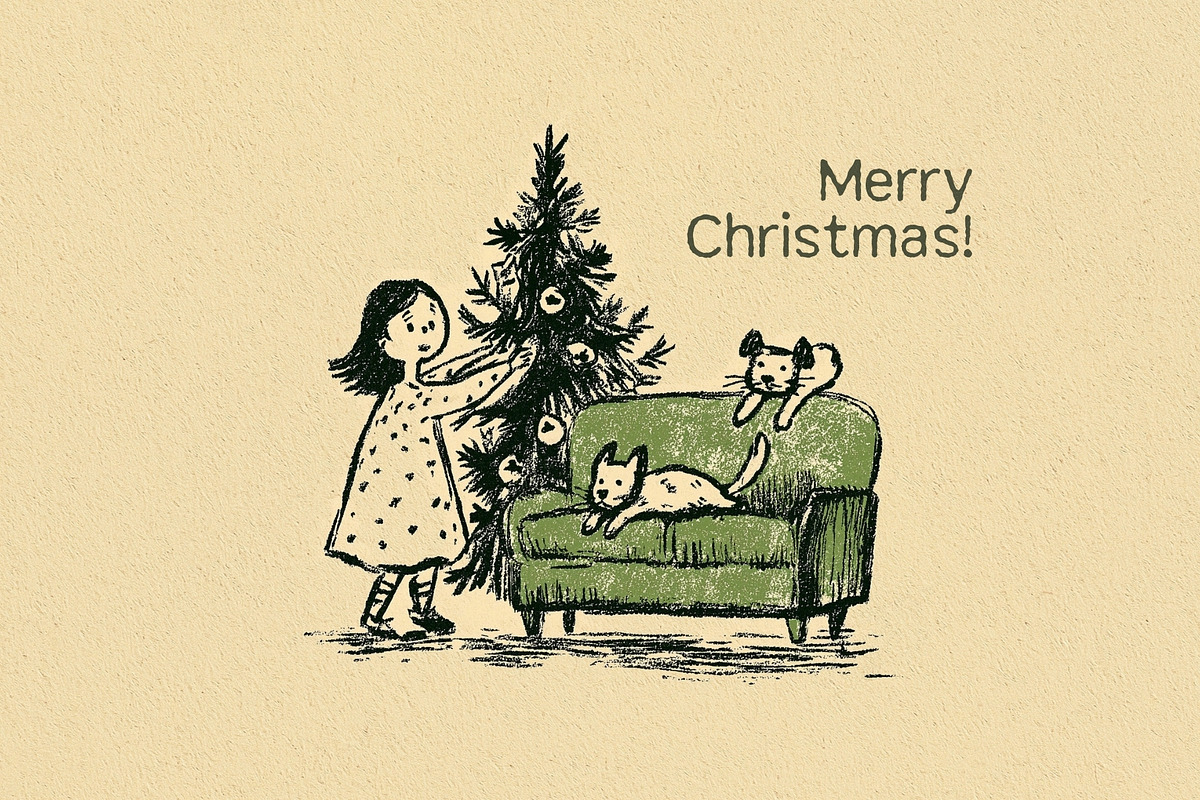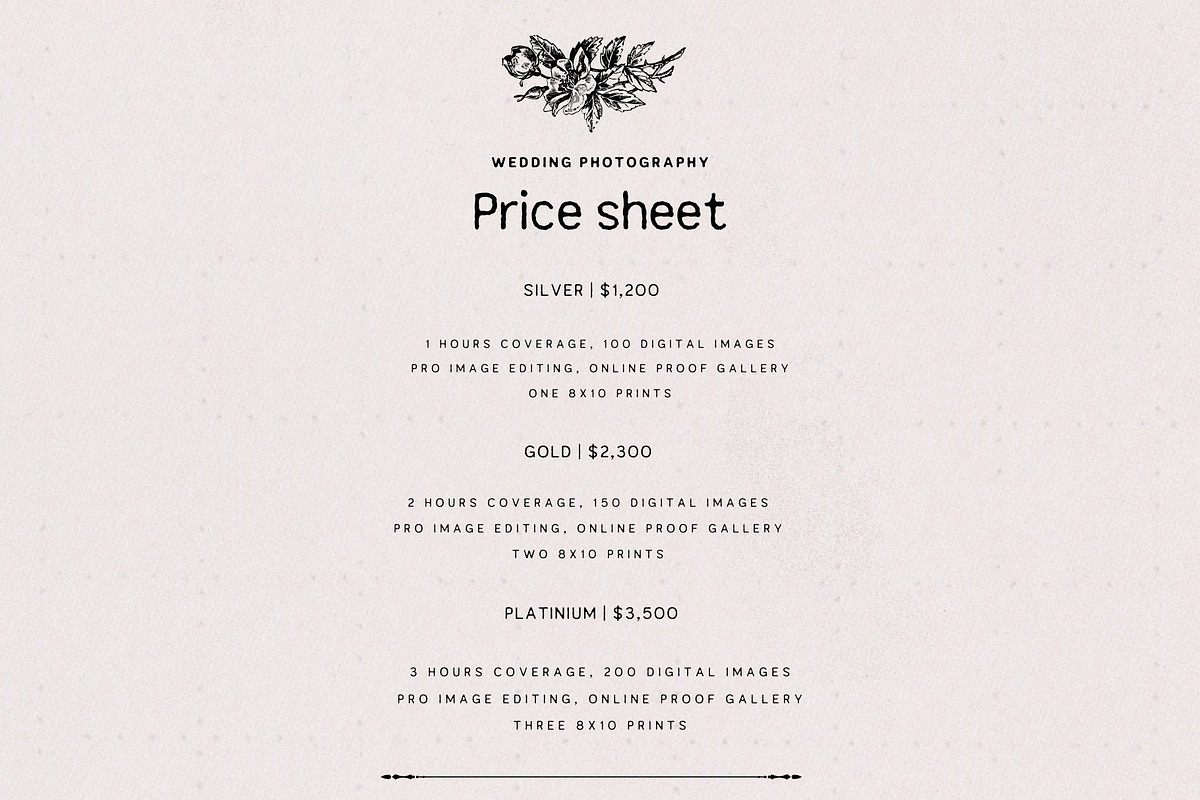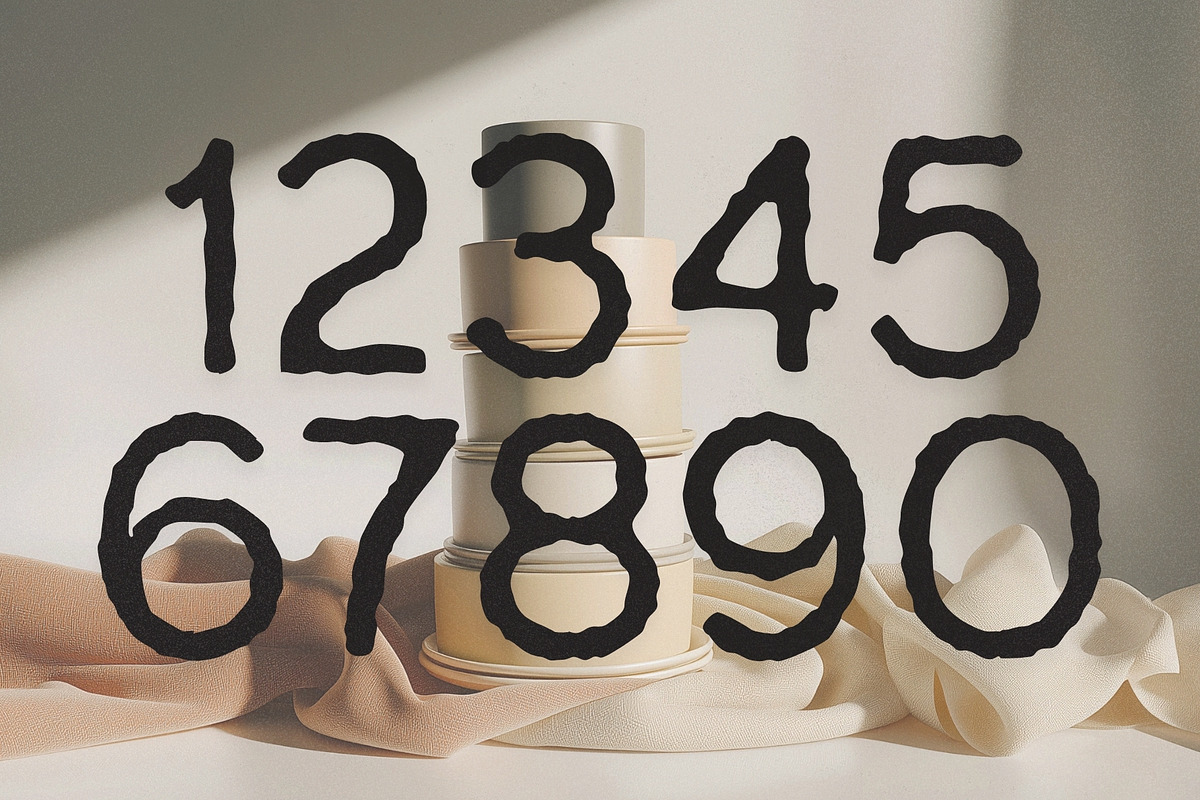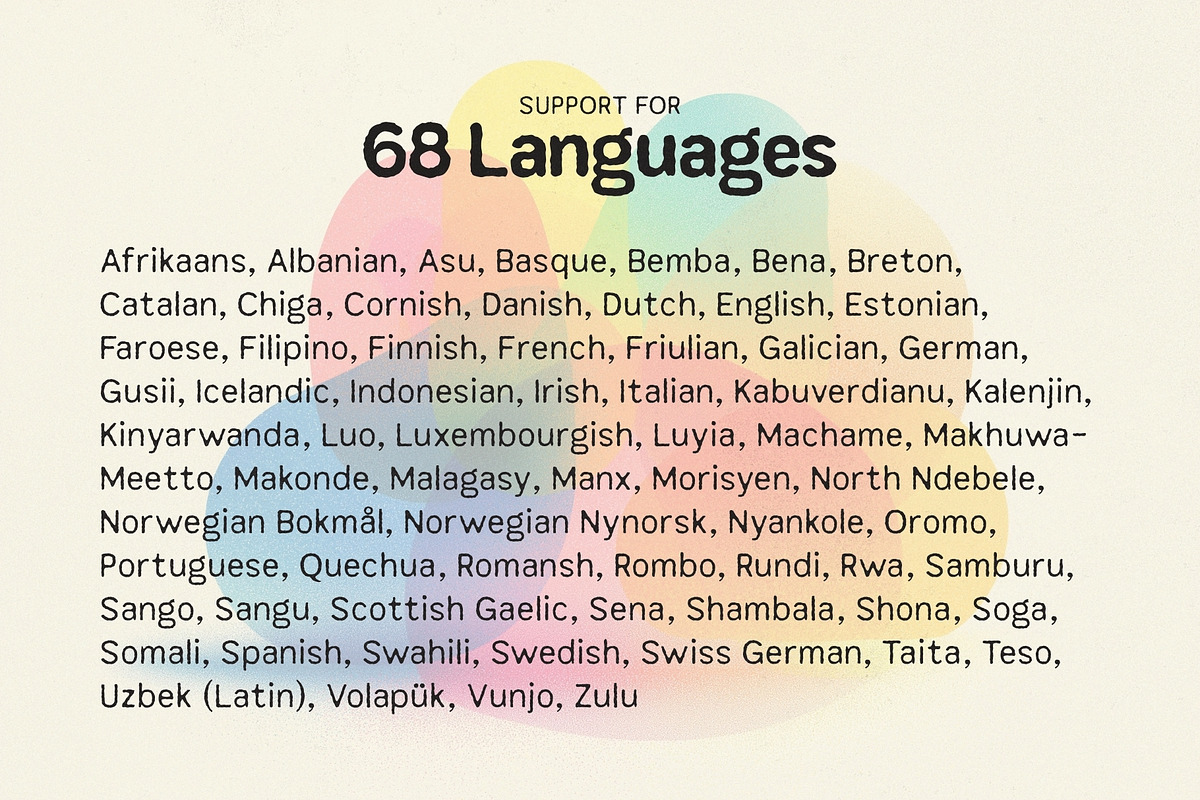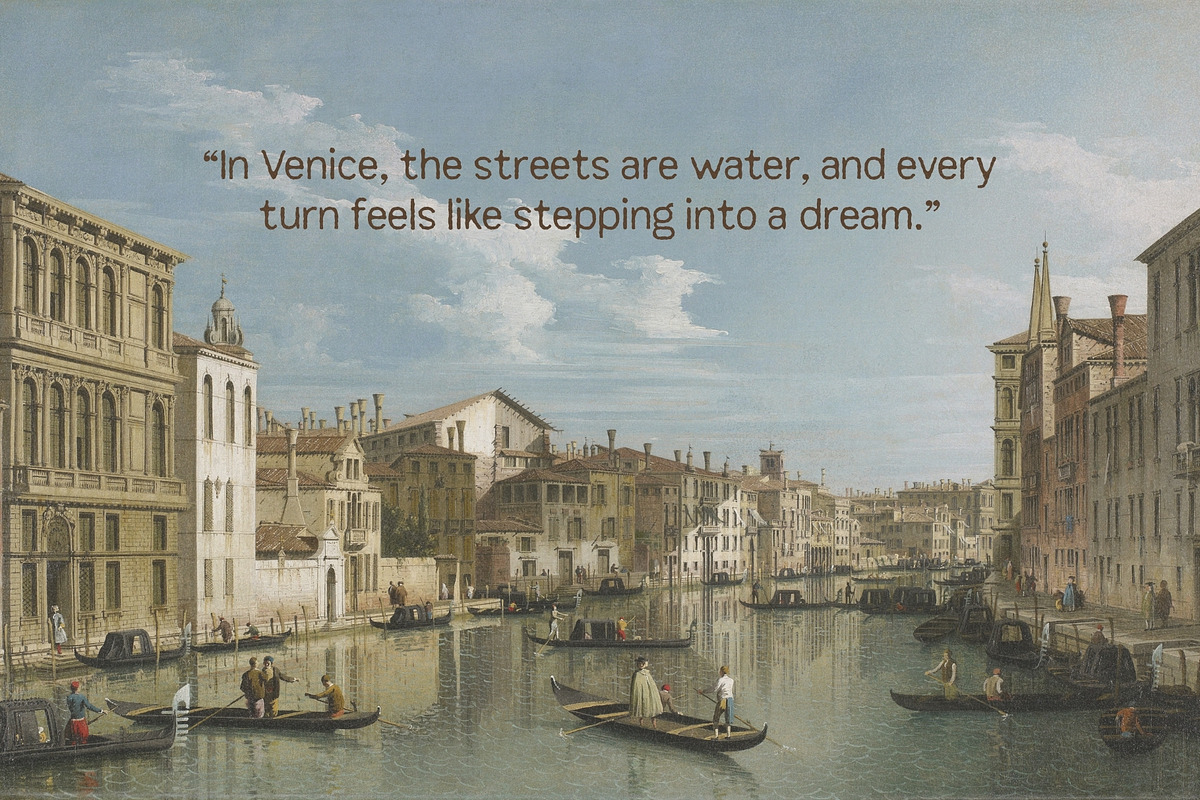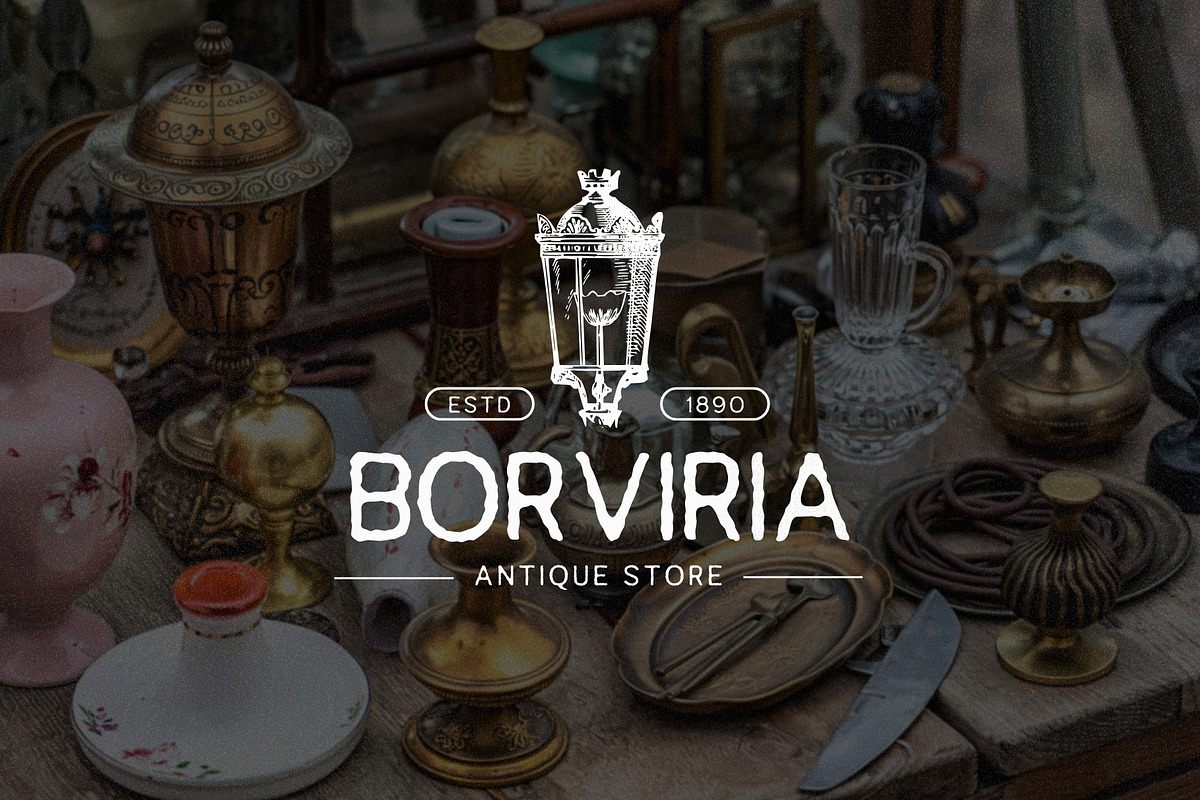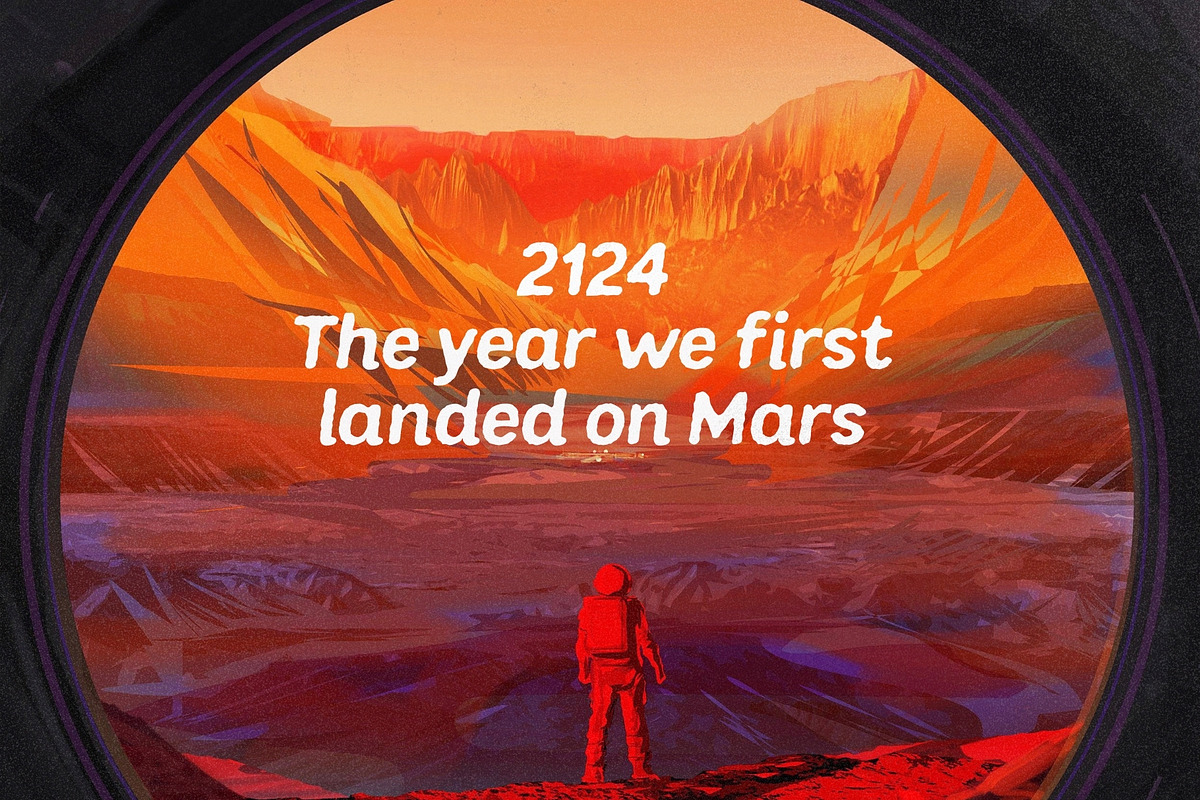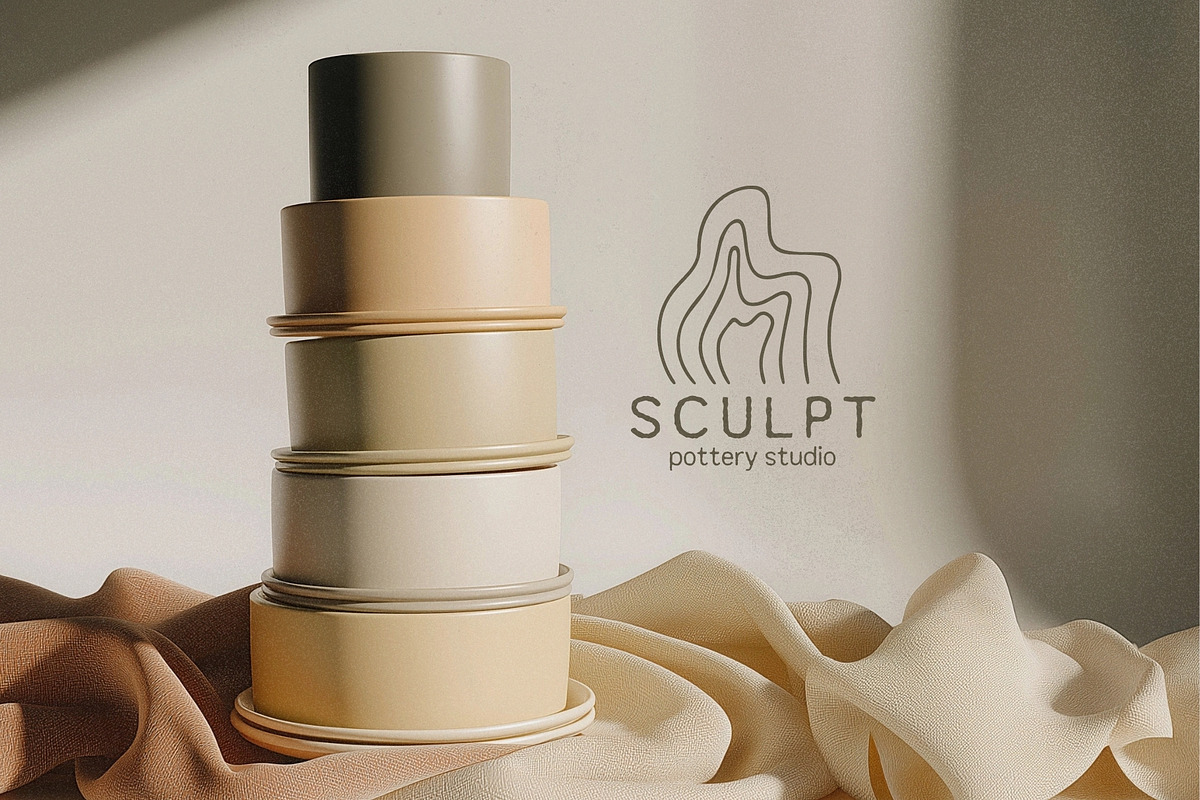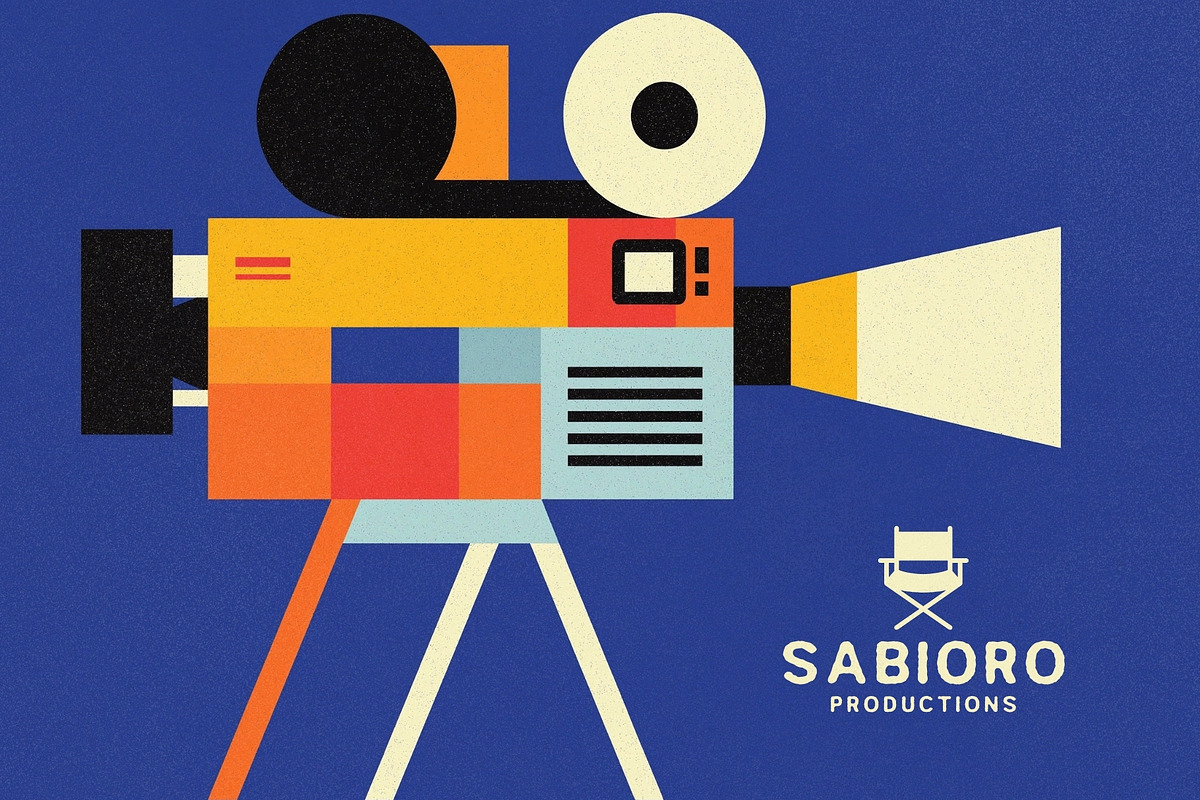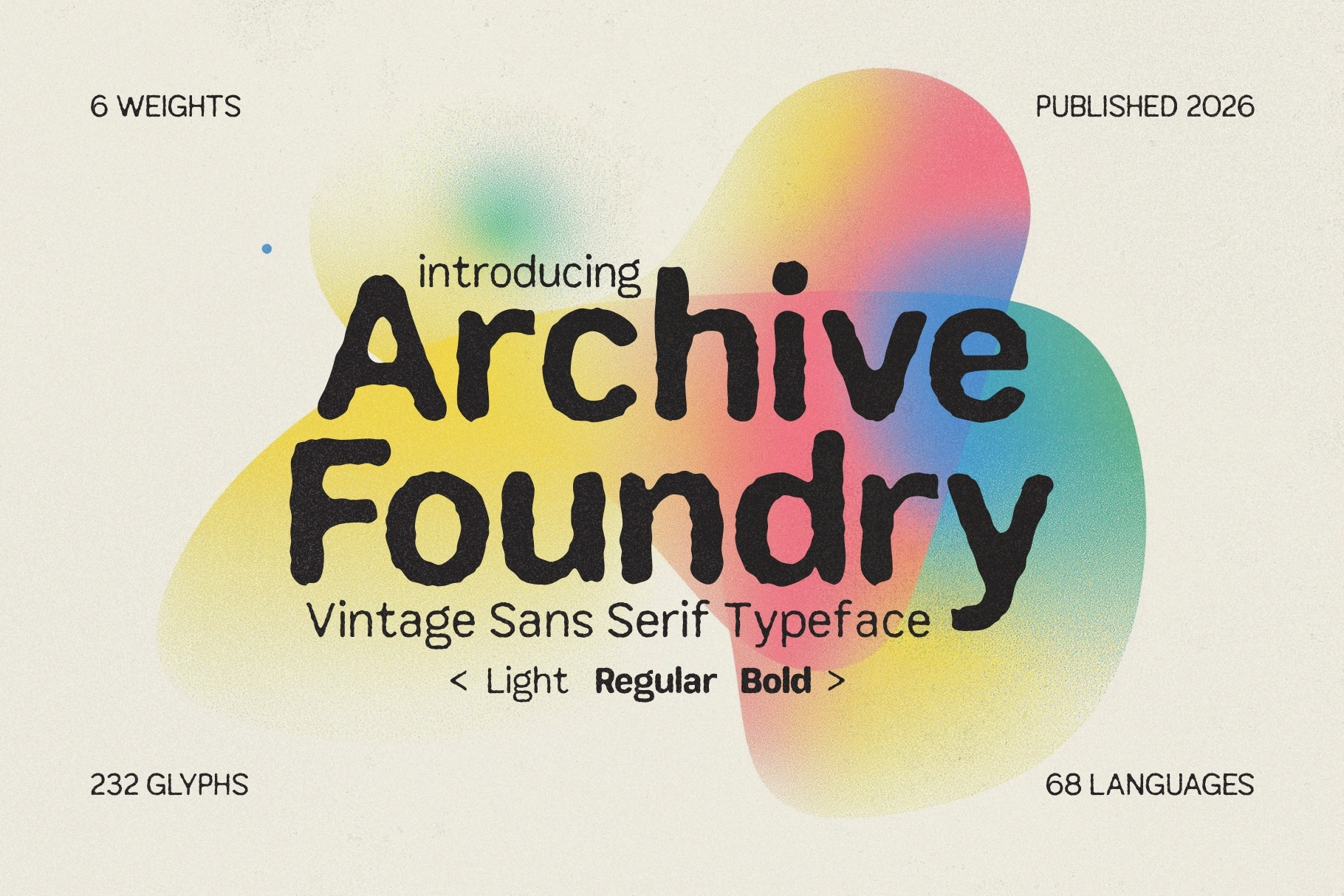
Archive Foundry - Vintage Typeface
Introducing Archive Foundry, a versatile sans serif typeface designed to blend modern clarity with rustic character. Inspired by vintage archives, historical documents, and timeless editorial design, Archive Foundry delivers a balanced typographic voice that feels both contemporary and authentically nostalgic.
With six carefully crafted weights, this typeface offers designers the flexibility to create strong visual hierarchies while maintaining a cohesive and elegant aesthetic. The letterforms are clean and structured, yet they carry a subtle vintage warmth that makes them perfect for projects that need a modern look with a classic touch.
Archive Foundry shines in both large headlines and smaller text applications. When used with generous letter spacing, its refined shapes create a sophisticated editorial feel that works beautifully in branding, publishing, and design layouts that require understated elegance.
Featuring 232 glyphs and support for 68 languages, Archive Foundry provides dependable global usability while maintaining a clean, professional typographic style.
The result is a font that feels timeless, versatile, and highly practical — a dependable addition to any designer’s toolkit.
✨ Font Features
- 6 Weights
- 232 Glyphs
- Supports 68 Languages
- Modern sans serif with rustic character
- Balanced proportions for both headlines and body text
🎨 Perfect For
- Modern branding projects
- Rustic wedding invitations & stationery
- Editorial & magazine layouts
- Historical or heritage design themes
- Logo design
- Posters & print layouts
- Website design
- Quote graphics